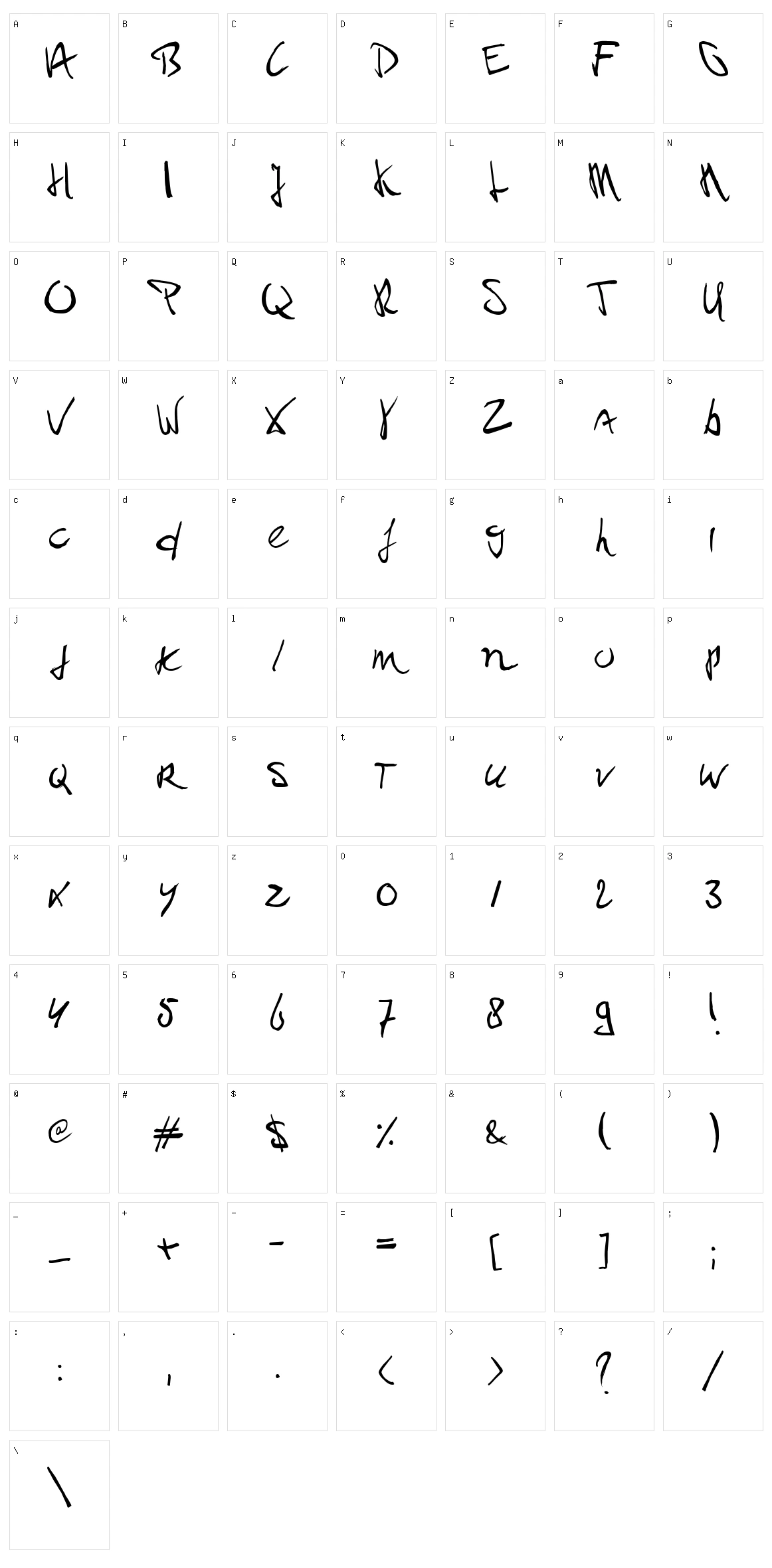
Paul PC font
by Paul & Tom Raaijmakers
2006-2008 Sint Oedenrode
This one is for my dad who died in 2006 in his battle to cancer.
Since his death I wanted to copy his handwriting
and make it into a font but it's hard since I
don't have all the letters from how he used to write.
So some of the letters I copied from his handwriting
and I filled in the blanks with how I think he used to write.